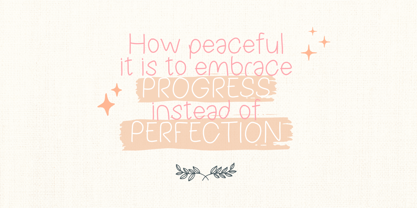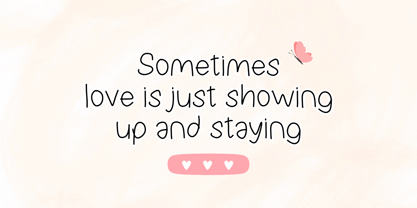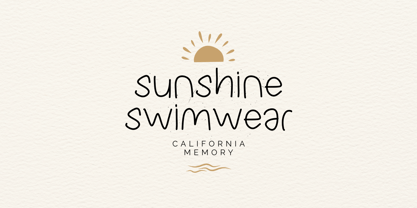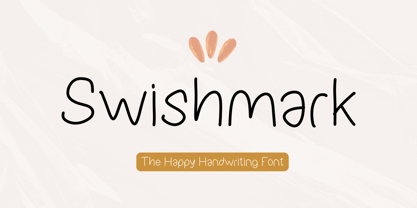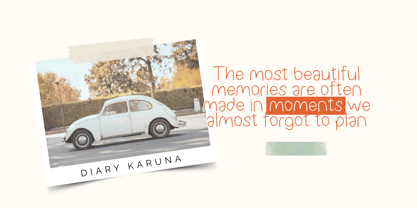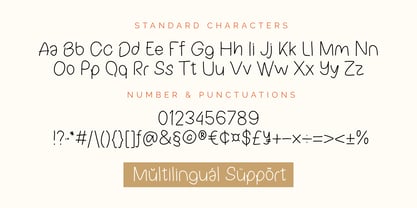
Swishmark
by Violatype
The Swishmark Font Family was designed by David Kasidi, Hasna Viola and published by Violatype. Swishmark contains 1 styles.
Swishmark is a smooth and playful handwritten font that captures the charm of casual pen strokes with a clean, modern twist. Each letter flows with a gentle rhythm, bringing a soft, personal feel to your designs like a heartfelt note written by hand.
This font is perfect for a wide range of creative projects, from wedding invitations, product packaging, social media quotes, and planner stickers, to branding, greeting cards, and personal journaling. Whether you’re aiming for something sweet, elegant, or simply human, Swishmark adds that warm and welcoming touch.